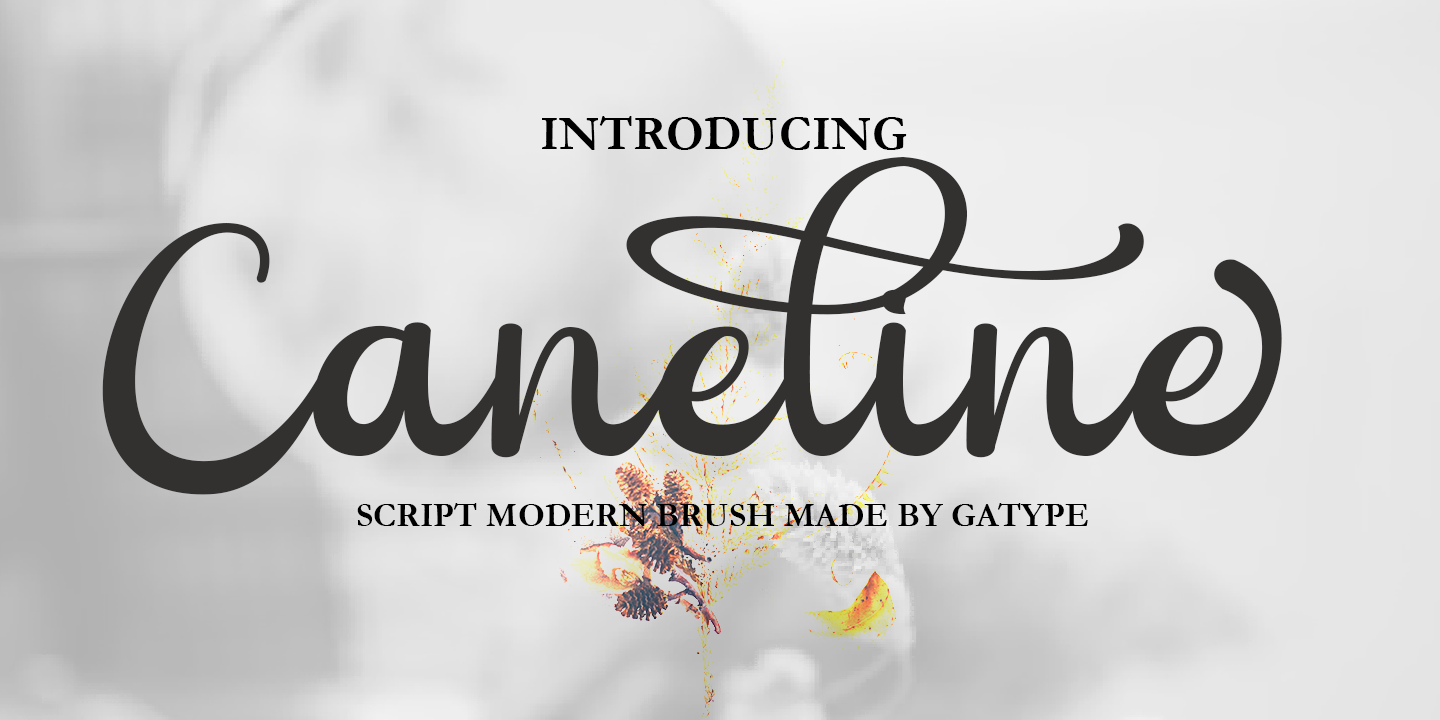
Caneline
Caneline is a brush script font family published by Gatype.
Caneline is an elegant classic script font, this font is equipped with various opentype features such as Stylistic Set & Ligature as well as multi-language support. Equipped with 90+ stylistic sets, this font has a large selection of glyphs / characters.
This font is perfect for your design needs such as wedding invitations, logo designs, branding, social media designs, books, magazines, etc.